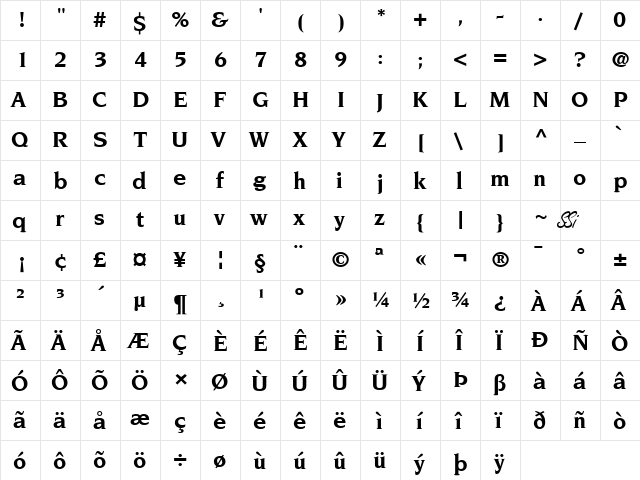
Trident SSi Bold
Design Context for Trident SSi Typeface
Trident SSi is a composed and adaptable typeface that performs quietly and consistently across a wide range of design contexts. The heavy weight commands attention and anchors typographic hierarchies.